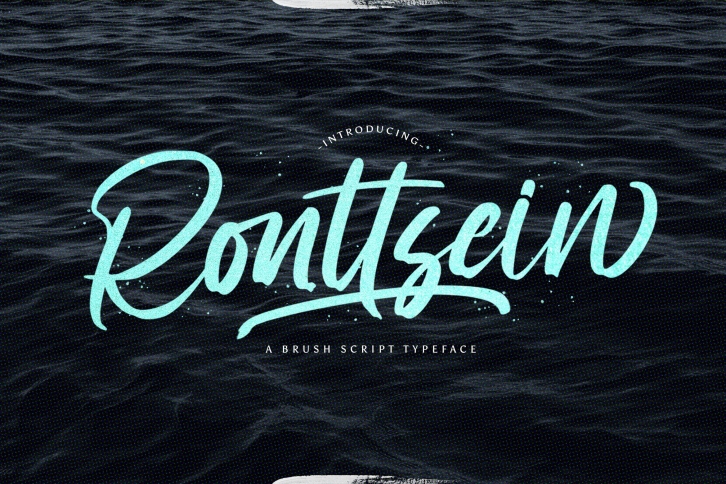
Ronttsein is a gorgeous font that was realeased on February 1, 2021. The font can be used in many style contexts and design environments. Perfect for invitations, magazines, websites, logos, and more! It was designed by Stringlabscreative and the file size is 6.17 MB. Thanks for checking out this font!